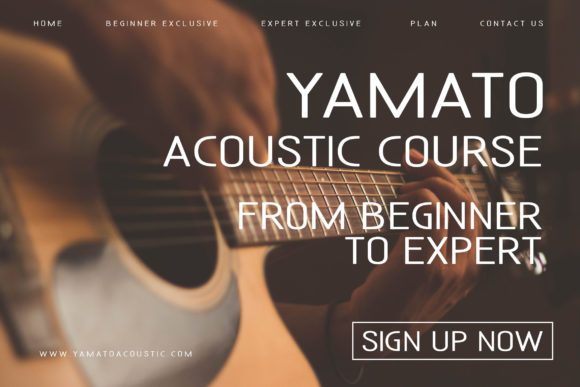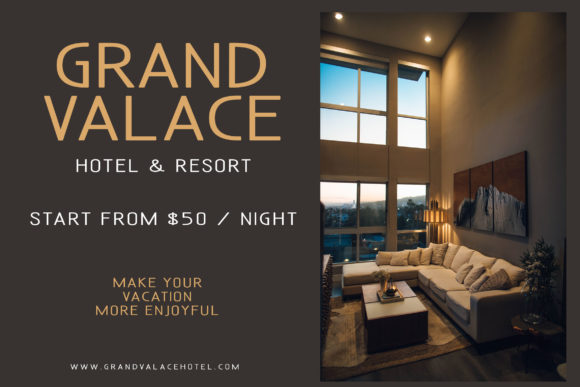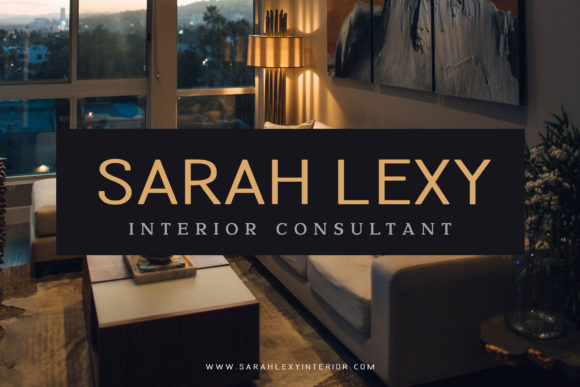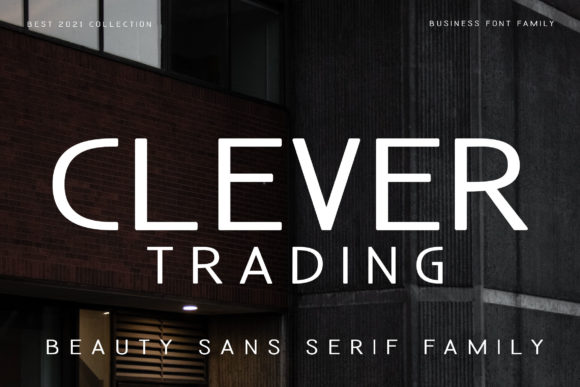
Clever Trading Font: Modern Sans Serif for Logo Design & Branding
About the Clever Trading Font
Presenting Clever Trading Font, a unique and stylish typeface that will make your work stand out. Clever Trading is a simple and modern sans serif font. This font is ideal for writing web designs, business cards, or pretty much anything else that requires a unique touch.
Its clean lines and geometric structure make Clever Trading particularly well-suited for headlines, logos, and short-form text in branding materials and website headers. It also works effectively on packaging where a modern and easily legible typeface is needed. However, its minimalist nature makes it less suitable for body copy or extended paragraphs; the lack of serifs can lead to reduced readability in larger blocks of text.
Clever Trading’s personality is undeniably modern and bold. This makes it a strong choice for brands aiming for a contemporary and confident image. Consider pairing it with a classic serif like Garamond for a sophisticated contrast, or a playful script font like Pacifico for a more approachable feel. A geometric sans-serif like Futura would also create a cohesive, modern aesthetic.
Avoid using Clever Trading in user interfaces (UI) where high readability is paramount across various screen sizes and contexts. Its strength lies in impactful, concise applications rather than extensive text blocks.